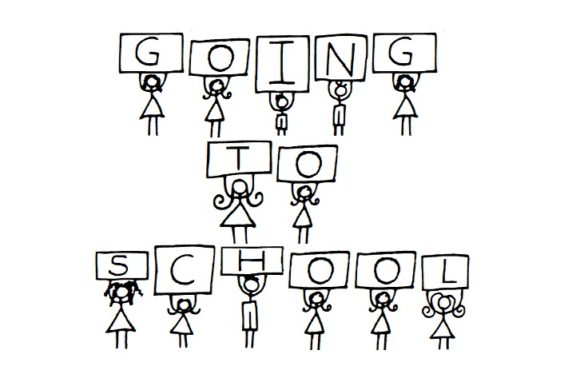
The Ultimate Guide to Alpha Kids Font: Adding a Playful Spark to Your Designs
Have you ever been in the middle of a design project, and suddenly, you just can’t seem to find the right font? I recall a particularly frustrating experience while working on a children’s book project. My client wanted a font that was fun, playful, and engaging, but everything I tried seemed to fall flat. That’s when I stumbled upon the Alpha Kids font, and it completely transformed my design. In this article, we’ll dive into the world of Alpha Kids, exploring its features, how to use it, and what makes it so special.
An Honest Review of Alpha Kids Font
What I Love About Alpha Kids ✨
- 💕 Playful and Whimsical: Alpha Kids has a unique, handwritten charm that adds a touch of personality to any design.
- ✅ Easy to Read: Despite its playful nature, the font remains clear and legible, making it perfect for body text.
- 🎉 Versatile: Alpha Kids works well for both digital and print projects, from social media graphics to children’s books.
- ⚠️ Limited Formality: Alpha Kids is a casual font, so it might not be the best choice for formal or professional projects.
- 🤔 Glyph Limitations: While the font has a range of glyphs, it might not have every special character you need.
One of the best things about Alpha Kids is its support for OpenType features. In programs like Adobe Photoshop and Illustrator, you can access:
- Ligatures: Combine letters for a more artistic look.
- Stylistic alternates: Switch between different font styles.
- Glyphs: Access special characters and symbols.
The Backstory of Alpha Kids Font
Alpha Kids was designed with the intention of creating a font that captures the imagination and playfulness of childhood. The designer aimed to craft a font that’s both fun and legible, perfect for projects that require a touch of whimsy.
| What type of projects is Alpha Kids best suited for? | Alpha Kids is perfect for children’s books, social media graphics, and any project that requires a playful touch. |
| Is Alpha Kids easy to read? | Yes, despite its playful nature, Alpha Kids remains clear and legible. |
| Does Alpha Kids support OpenType features? | Yes, Alpha Kids supports OpenType features, including ligatures and stylistic alternates. |
Alpha Kids font is a fantastic addition to any designer’s toolkit. Its playful vibe and whimsical charm make it perfect for projects that require a touch of personality. With its ease of use and versatility, Alpha Kids is sure to become a favorite font for designers, crafters, and creative hobbyists alike.